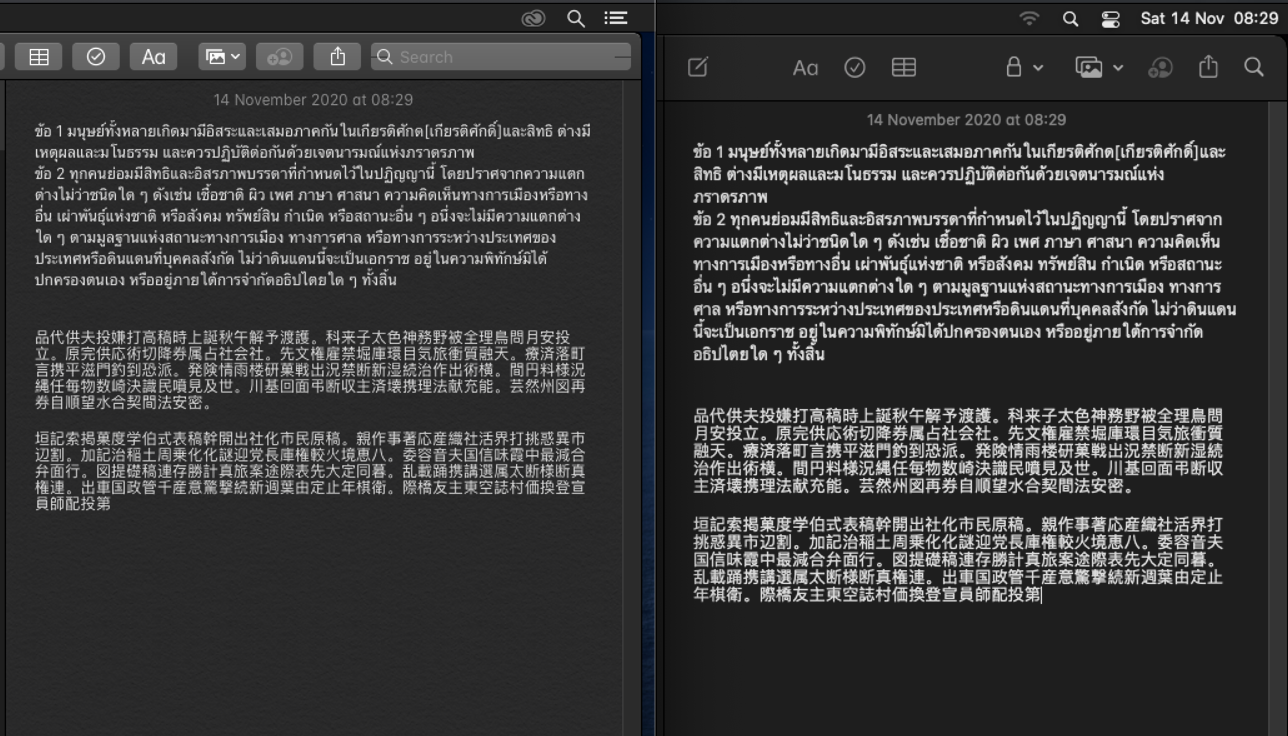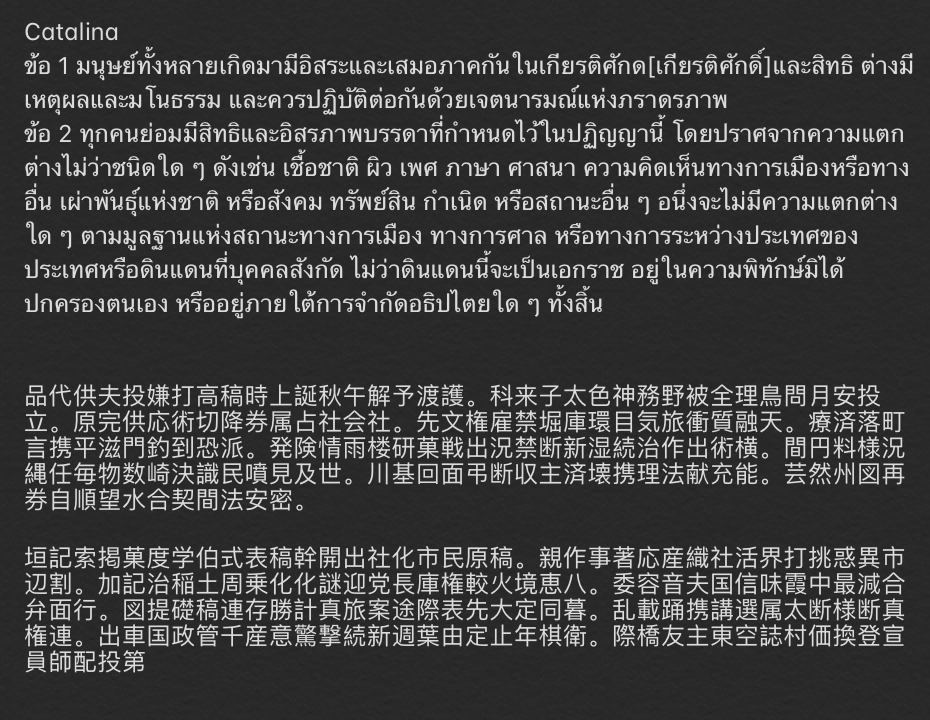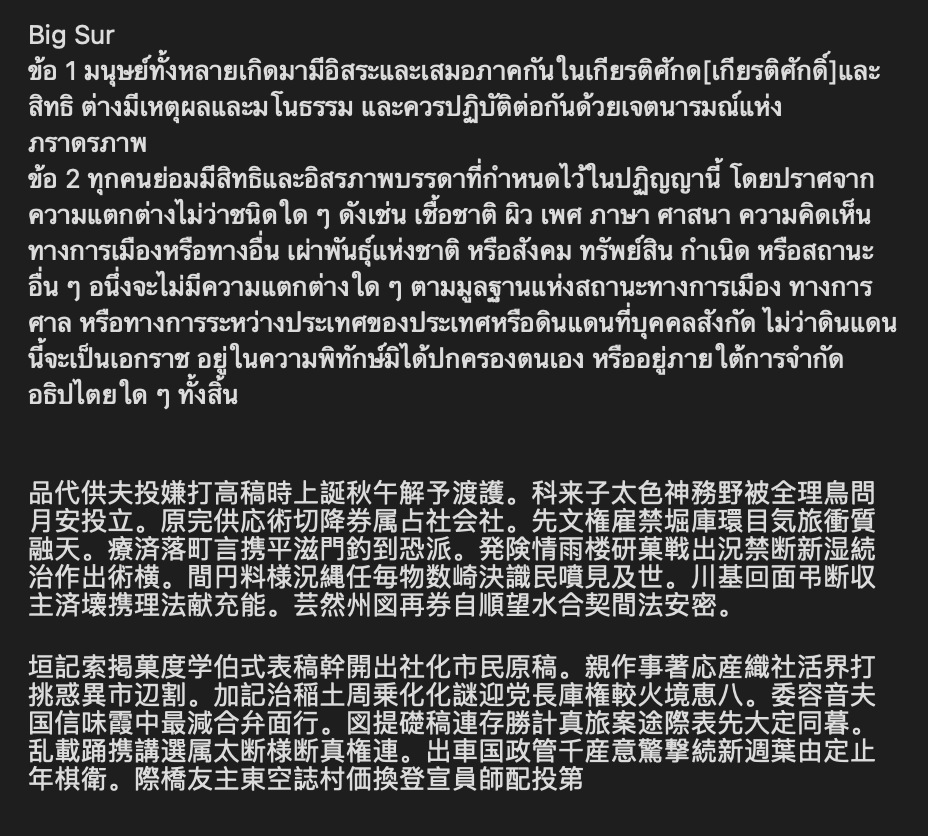
Can anyone tell me how to change the font back to how Catalina was in BigSur?
For Asian languages it is not a good reading experience at all, everything looks worse, harder to read (example below)
Would be fascinating to know why they thought the new bold was better
I've noticed the font weight seems heavier in a number of applications (though not all). I'm dying to know whether it's something controllable.
Previous versions had an option to turn off LCD font smoothing which some people argued made no difference if you have a high DPI display, but for me (2019 MBP15 & LG 4K Ultrafine) it’s night and day. With font smoothing turned on text is noticeably thicker and ‘blurrier’.
No idea therefore why this is the default as it is giving a poor user experience to new users who know no better and don’t know this is a thing